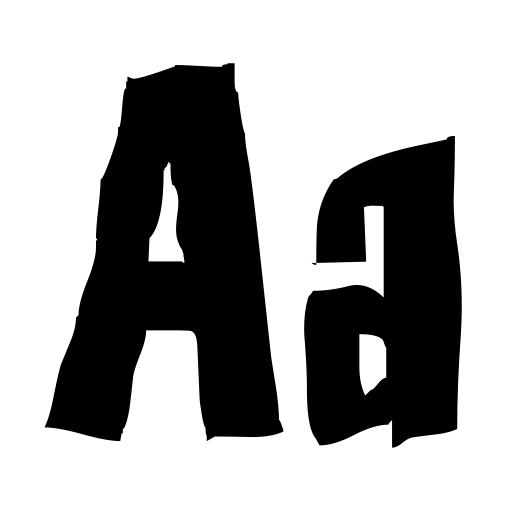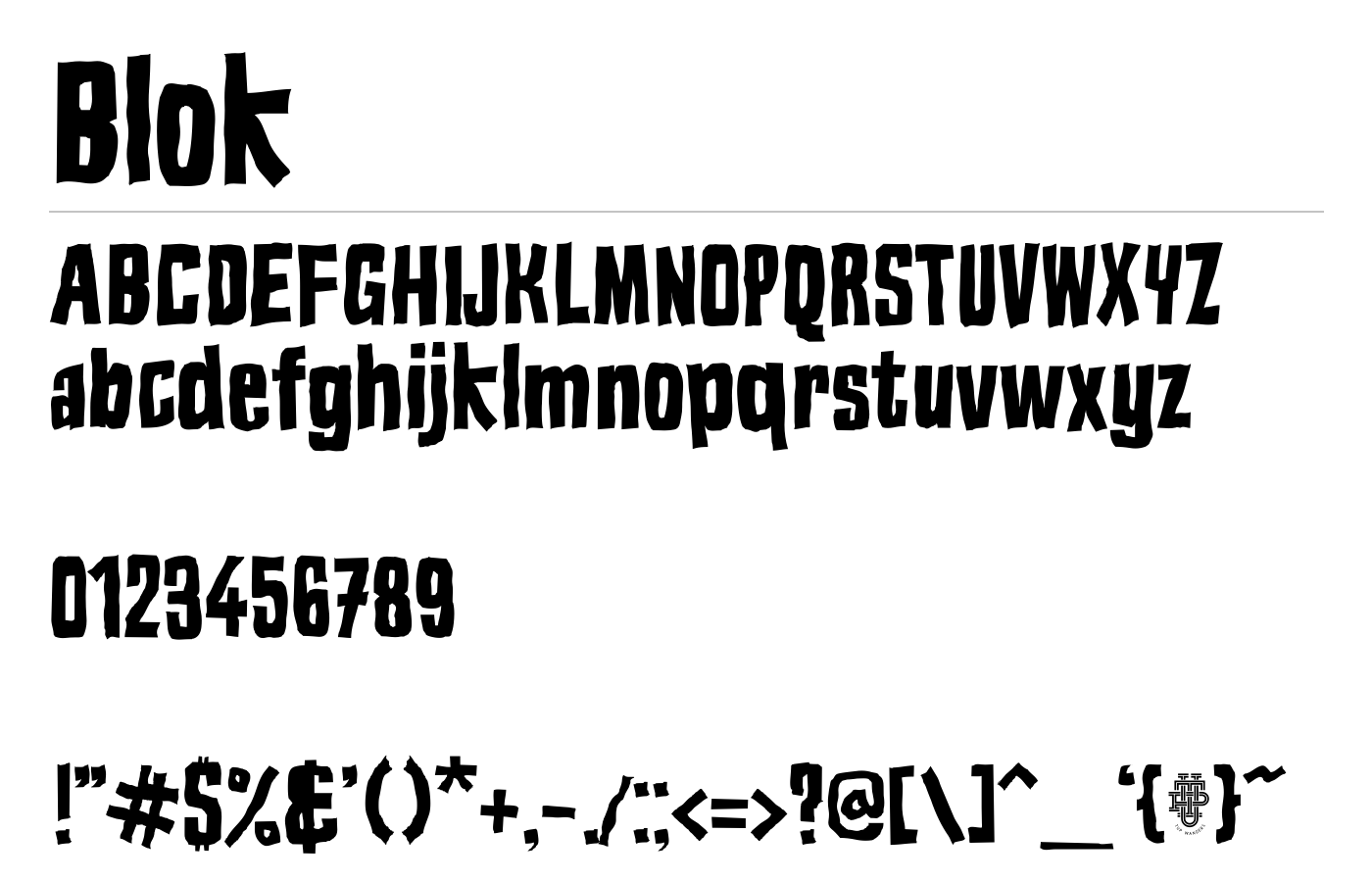
Blok Font is a bold, condensed sans serif with a playful, hand-crafted feel created by its irregular strokes and slightly uneven letterforms. Its strong, blocky shapes and quirky character make it perfect for attention-grabbing headlines, posters, and branding that aims to be fun, energetic, and informal. This font works well where a distinctive, edgy personality is desired without sacrificing readability.
Blok Font
About Blok Font
| Font family | Blok Font |
| Designer | Tup Wanders |